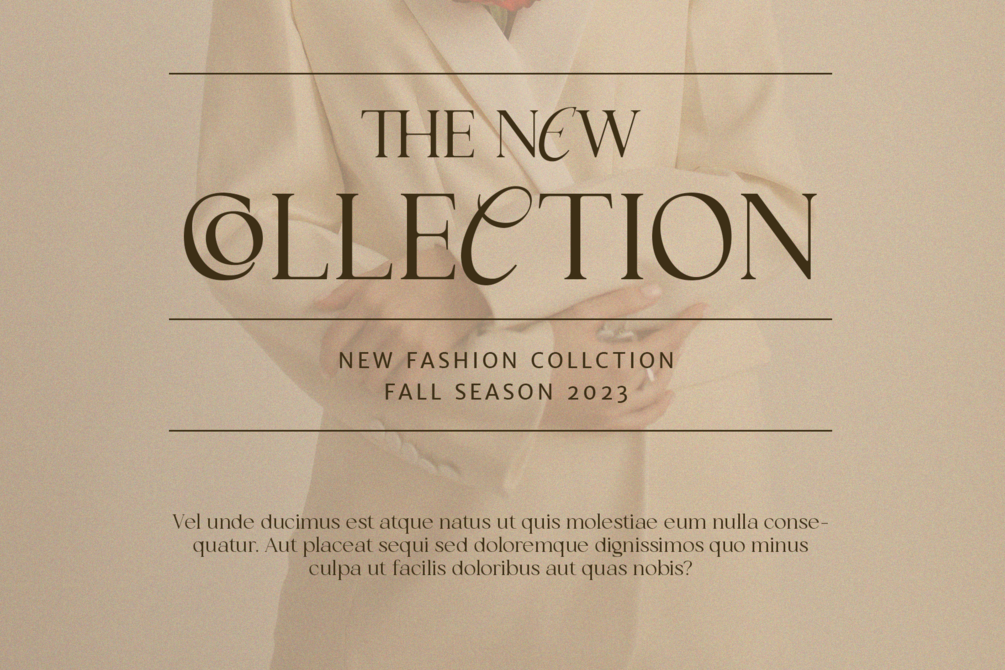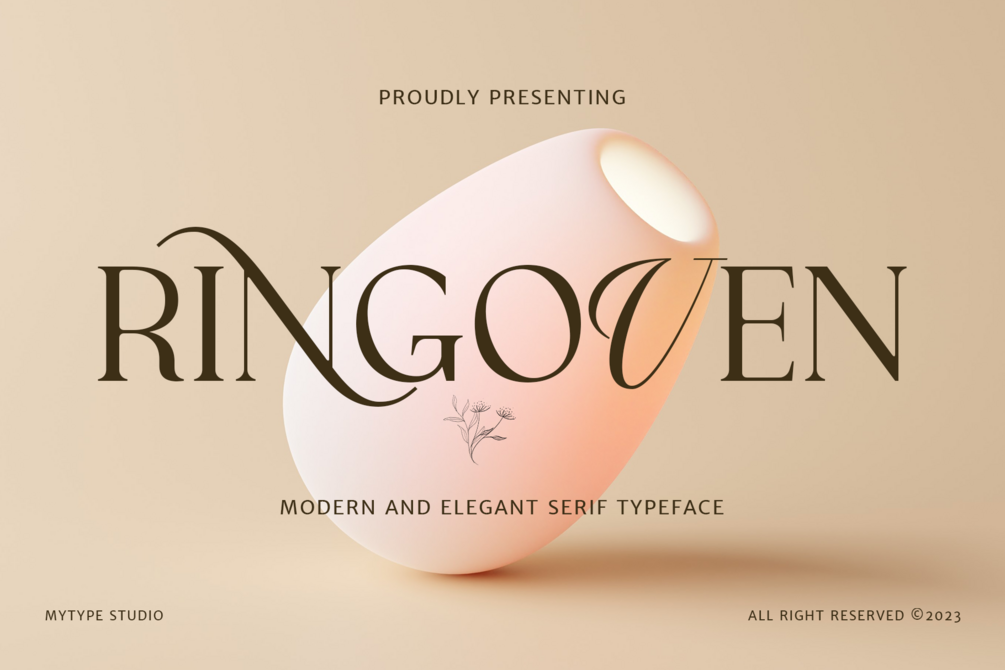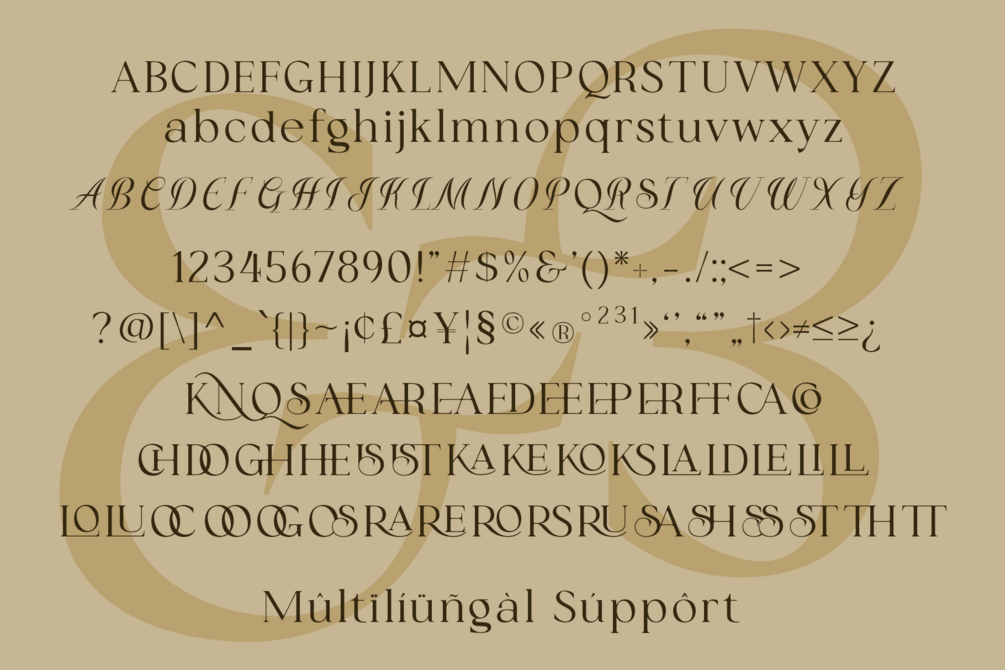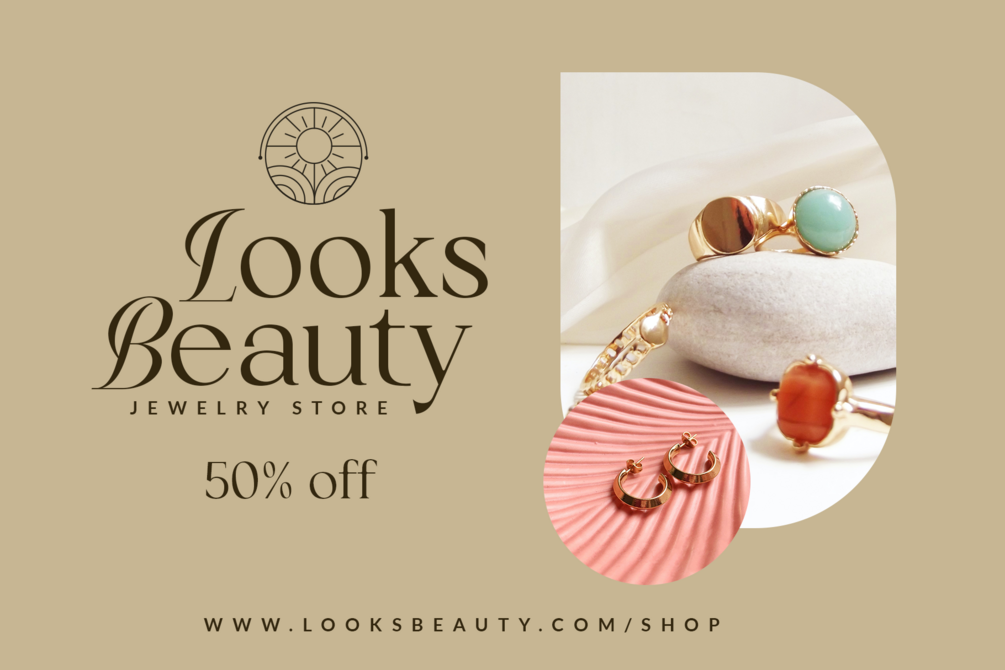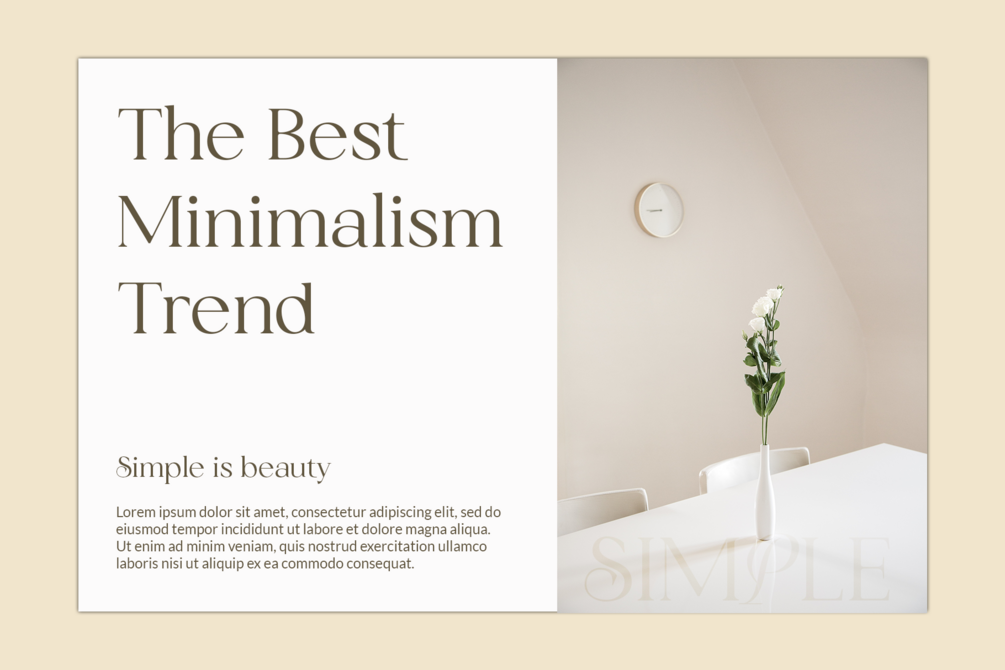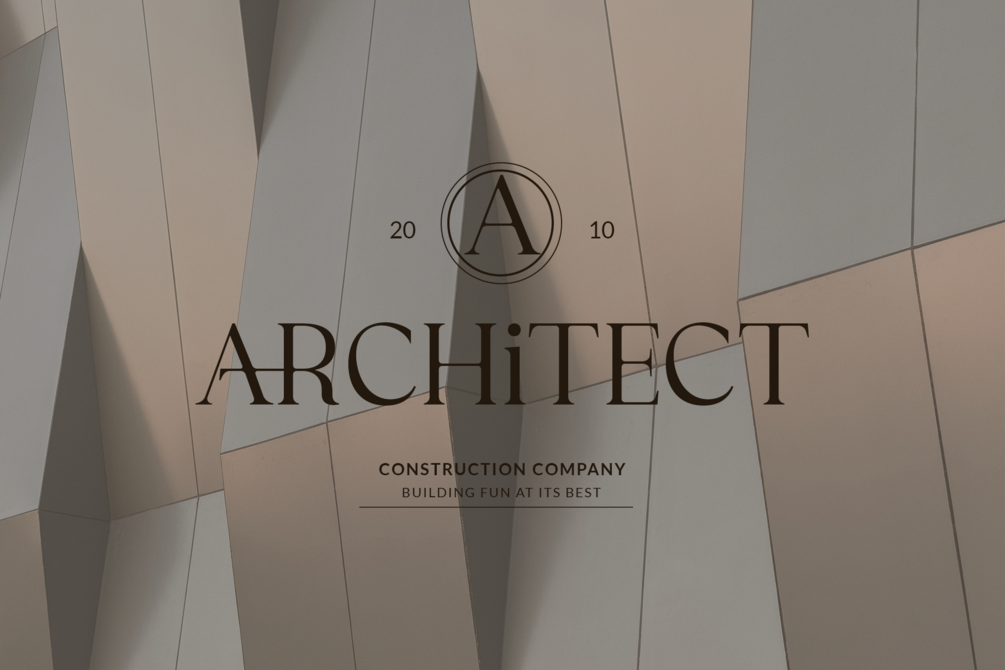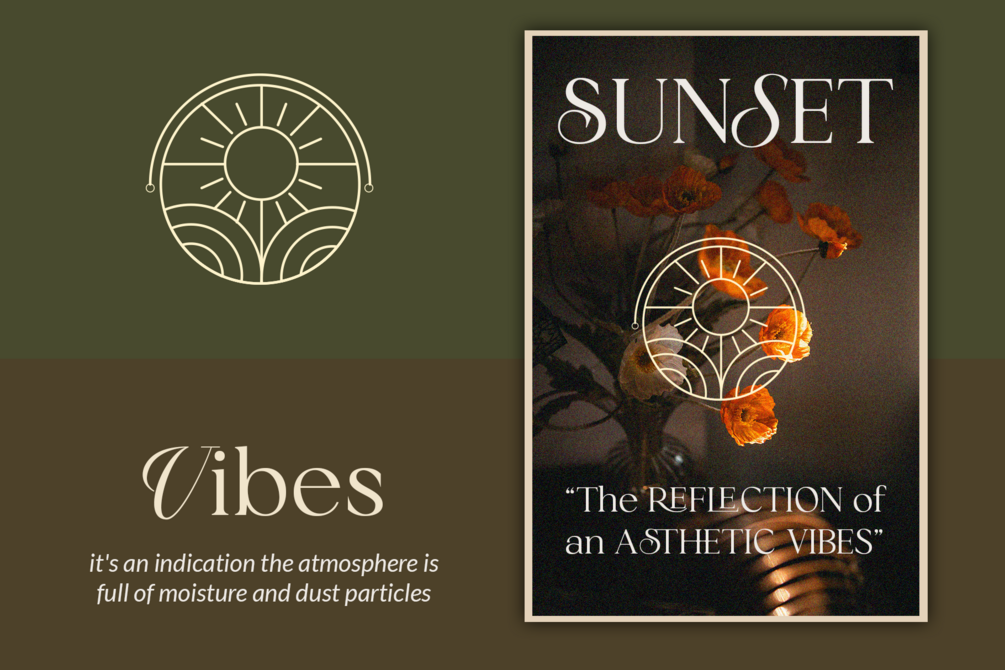
Ringoven - Serif Display Font
Introducing Ringoven: Elevate Your Designs with Timeless Elegance
Experience the epitome of sophistication with Ringoven, a breathtaking display serif font that exudes elegance and charm. Crafted with meticulous attention to detail, Ringoven adds a touch of class to any project, making it perfect for headlines, branding, invitations, and more. With its graceful curves and refined strokes, Ringoven is sure to captivate your audience and leave a lasting impression.
Why Choose Ringoven?
Elegant Display Serif: Ringoven boasts a stunning display serif style, designed to command attention and convey a sense of luxury and refinement.
Timeless Appeal: With its classic yet contemporary design, Ringoven transcends trends, ensuring your designs stand the test of time with enduring elegance.
Versatile Usage: Whether you're crafting logos, posters, editorial layouts, or digital content, Ringoven offers versatility to elevate any project with its sophisticated flair.
Exceptional Detailing: Every curve and flourish of Ringoven is meticulously crafted to perfection, ensuring a flawless appearance in every application.
Elevate Your Designs
With Ringoven, your designs reach new heights of sophistication and elegance. Embrace the timeless allure of this display serif font and make a statement that resonates with style and grace.
This gorgeous font includes all lowercase and uppercase characters, numbers, punctuation, an array of standard ligatures and a selection of international characters as well.